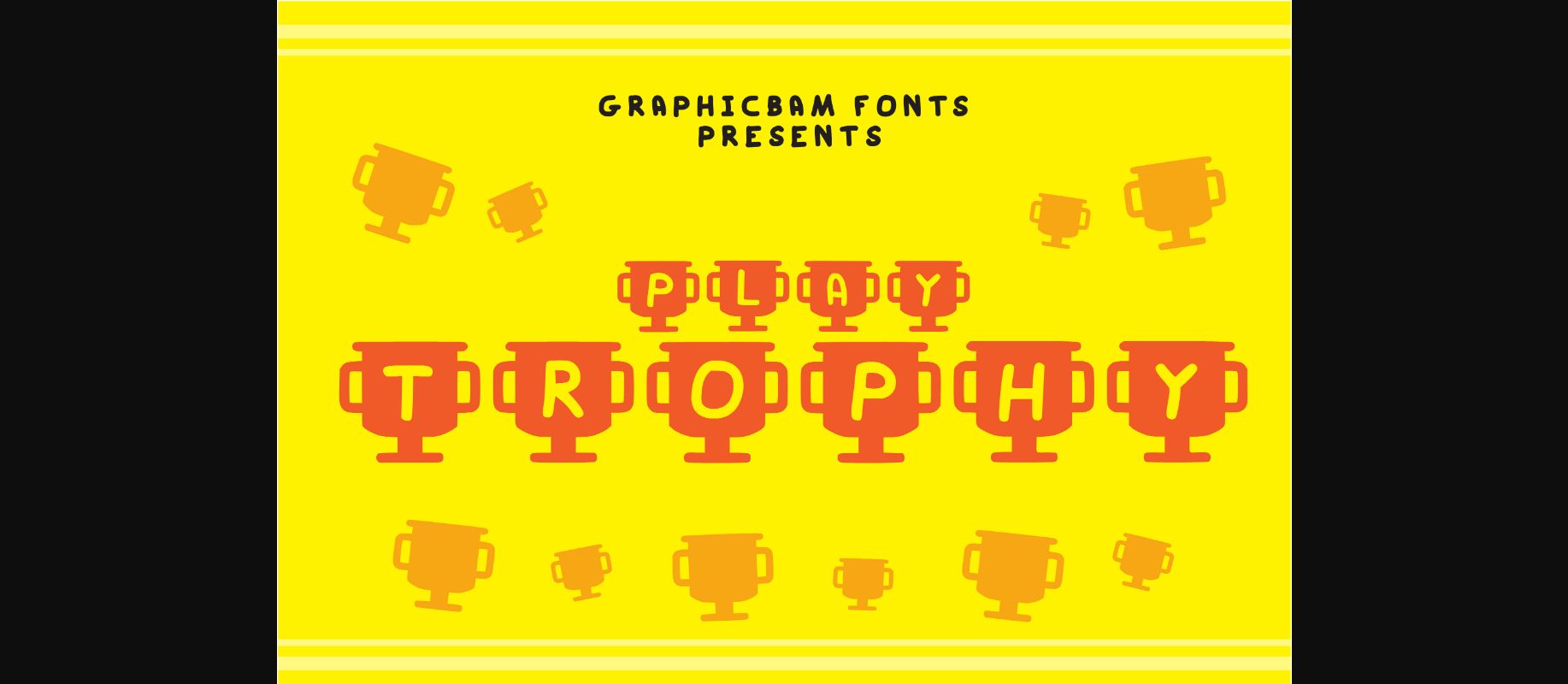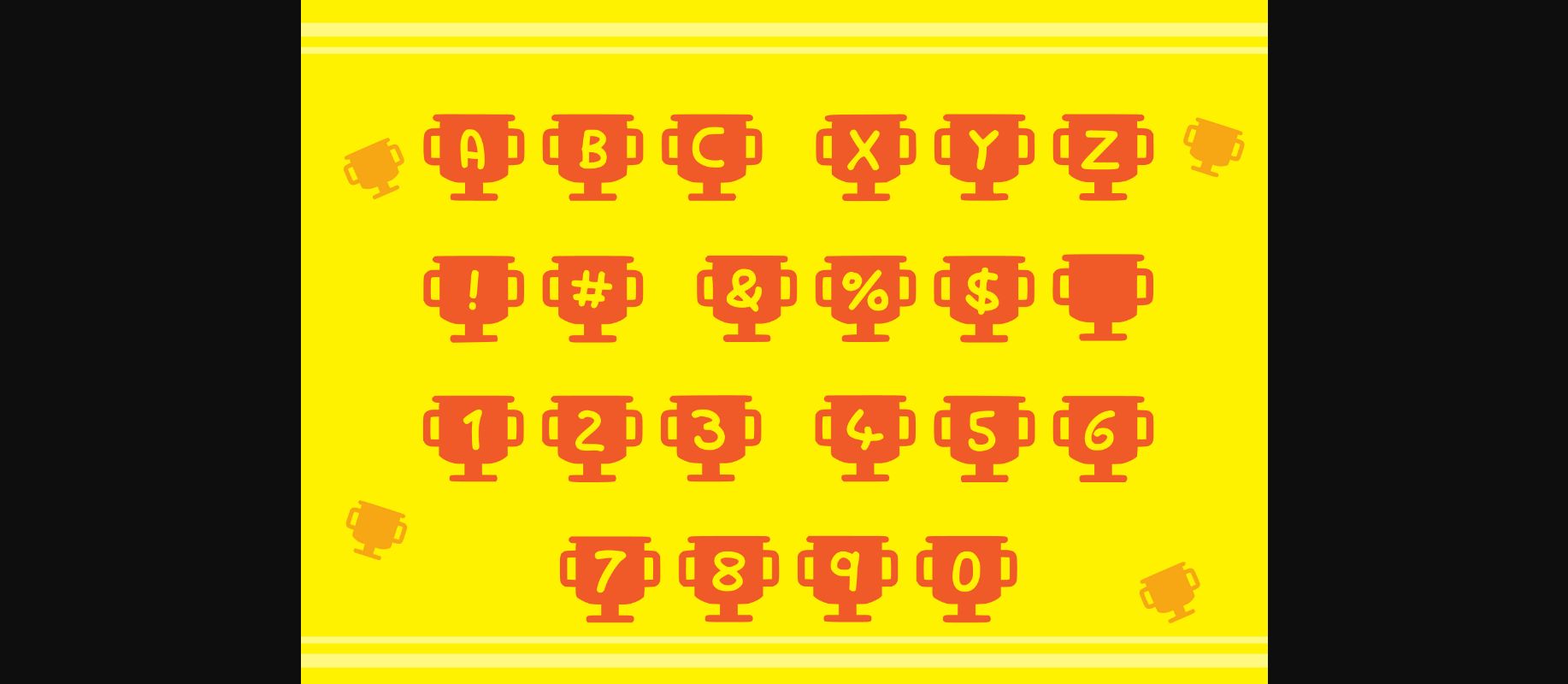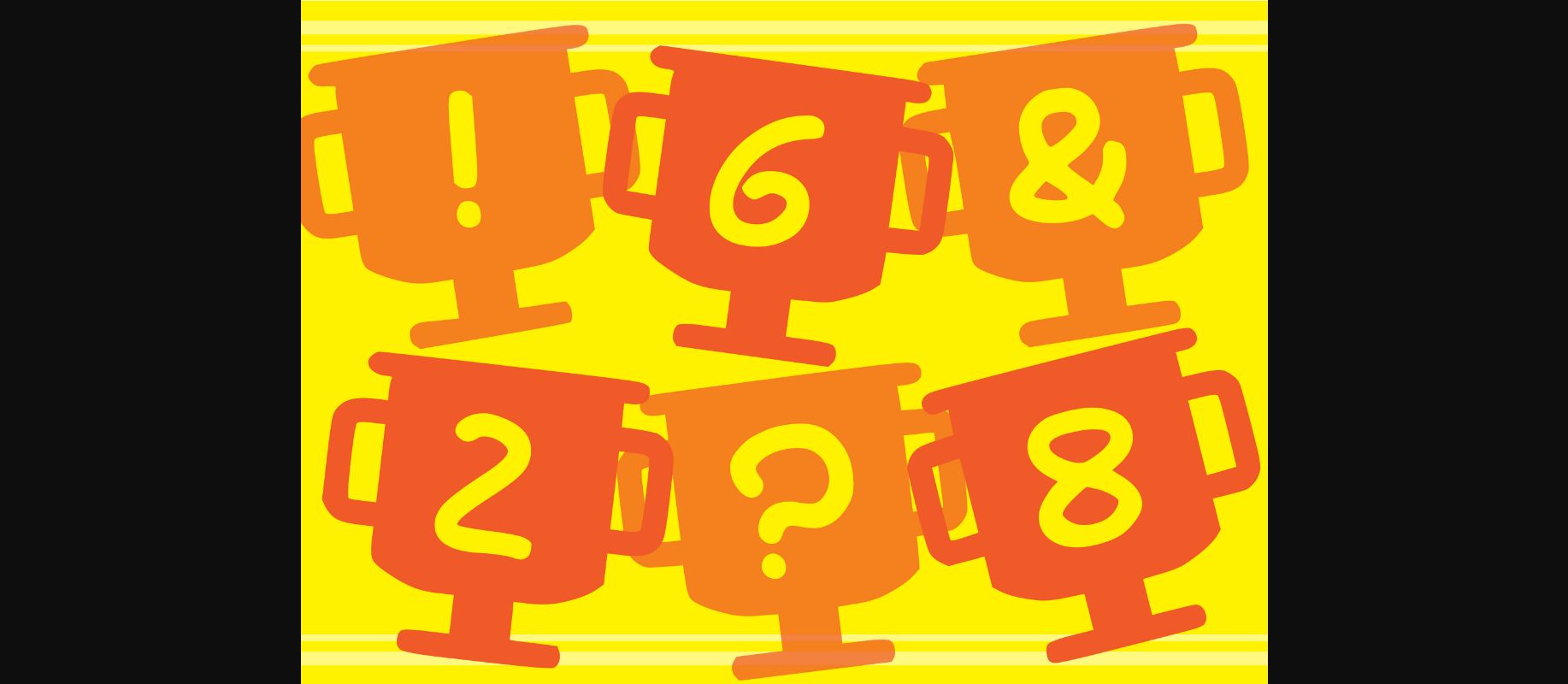
Play Trophy Font
About Play Trophy Font
Play Trophy is an incredibly cool and interestingly designed decorative font. Whether you’re using it for crafting, digital designing, presentations or greeting cards making, it’s perfect!